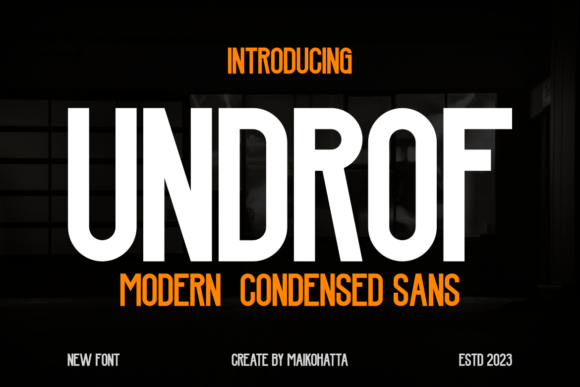
Are you ready to elevate your website's design to the next level? Look no further than Undrof Font, the ultimate choice for modern websites. With its sleek and slim letterforms, Undrof Font belongs to the sans serif font family, making it perfect for creating a contemporary and stylish look.
Undrof Font is designed to captivate your audience right from the first glance. Its narrower and slimmer letterforms give your website a clean and sophisticated appearance, instantly grabbing the attention of visitors. Whether you're building a personal blog, an online store, or a corporate website, this font will enhance your brand image and leave a lasting impression on your users.
Unleash your creativity with Undrof Font's condensed style. Its unique characteristics make it a versatile choice for various graphic designs, print materials, and other media. From eye-catching banners to attention-grabbing logos, this font will seamlessly integrate into your design projects, adding a touch of elegance and professionalism.
By choosing Undrof Font, you're not just getting a font; you're getting a powerful tool to express your brand's personality. Its modern and sleek appearance conveys a sense of innovation, pushing boundaries and setting your website apart from the competition. Stand out from the crowd and let your creativity shine with this remarkable font.
But that's not all! Undrof Font is created by the talented maikofarazhatta, a renowned designer known for their exceptional attention to detail. Each letterform is meticulously crafted, ensuring a flawless and seamless reading experience for your users. With Undrof Font, you can trust that your website will always look professional and polished.